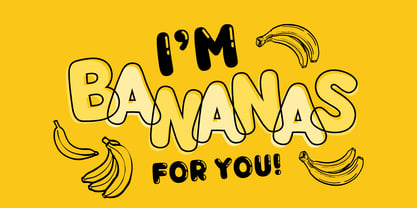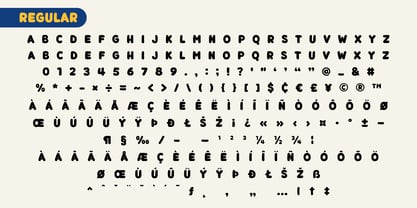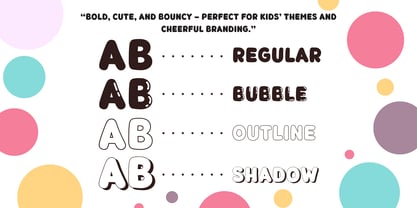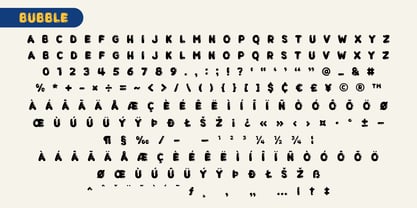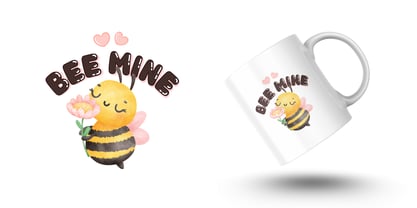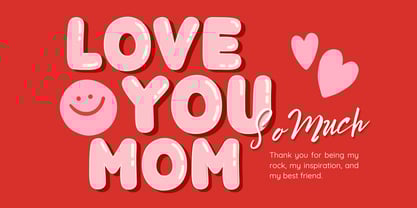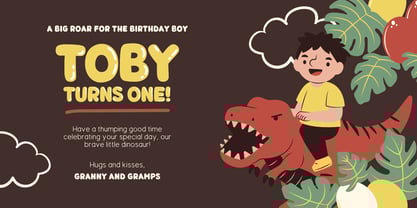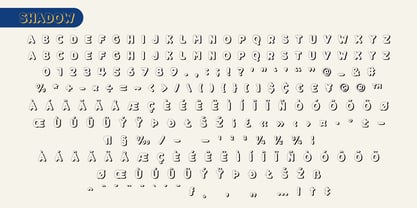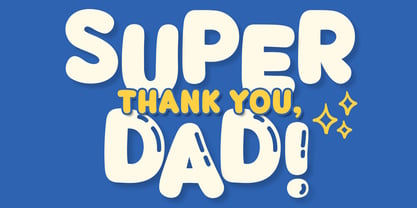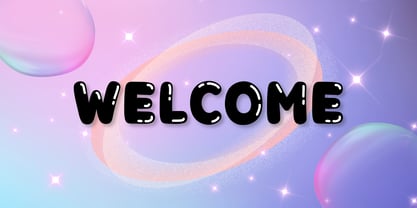
Fox Chubby
Fox Chubby is a sweet and bubbly font family crafted with love for designers, crafters, and creatives who want to add joy and personality to their projects. It comes with 4 charming styles — Regular, Bubble, Outline, and Shadow — that work beautifully for playful branding, kids’ products, SVG designs, and printable crafts.
What’s Inside :
Fox Chubby Regular – A clean and chunky version for bold statements and fun titles.
Fox Chubby Bubble – Glossy and candy-like, perfect for a playful and 3D look.
Fox Chubby Outline – A hollow version great for layering, coloring, or minimalist designs.
Fox Chubby Shadow – A pop-out effect with a soft drop shadow for more depth and cuteness.
🧡 Ideal For :
Kids' T-shirts & Apparel
Birthday Invitations & Party Decor
Classroom Printables
Sticker Packs & Clipart
KDP Covers & Activity Books
Cricut & Silhouette Crafts
Etsy Product Labels
YouTube Thumbnails & Content Creators
Whether you're designing for a child's birthday or launching a cute product line, Fox Chubby makes everything more joyful. Pair the styles for layered effects or use each on its own for maximum charm!